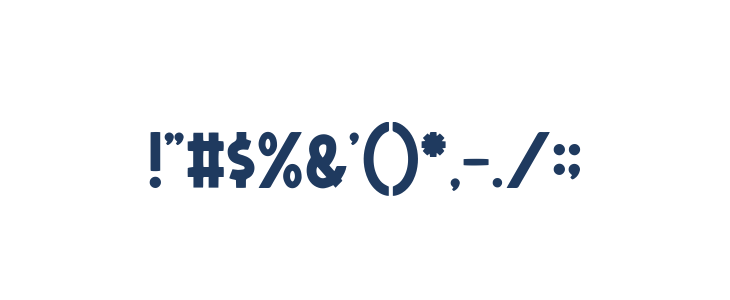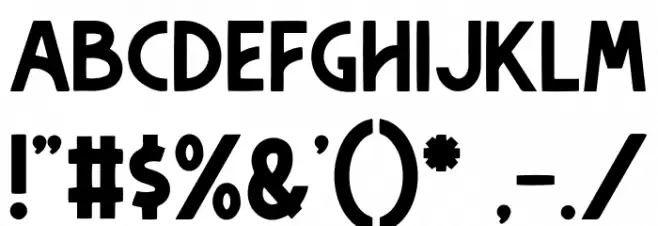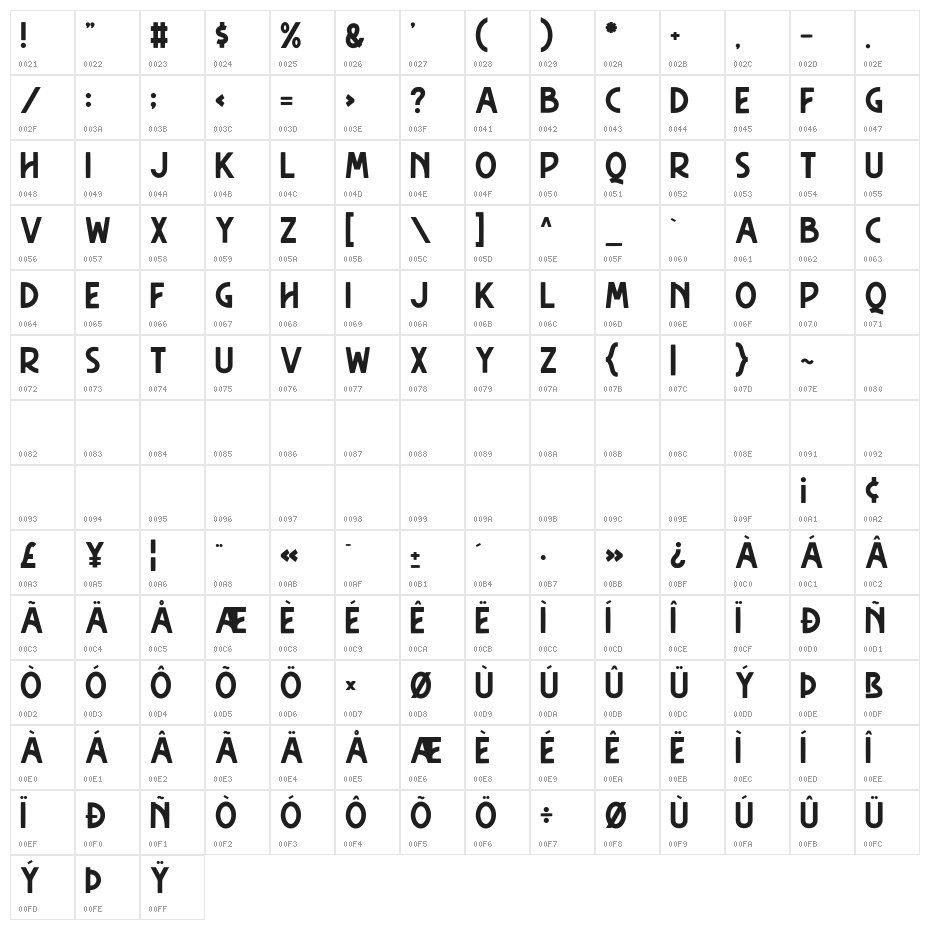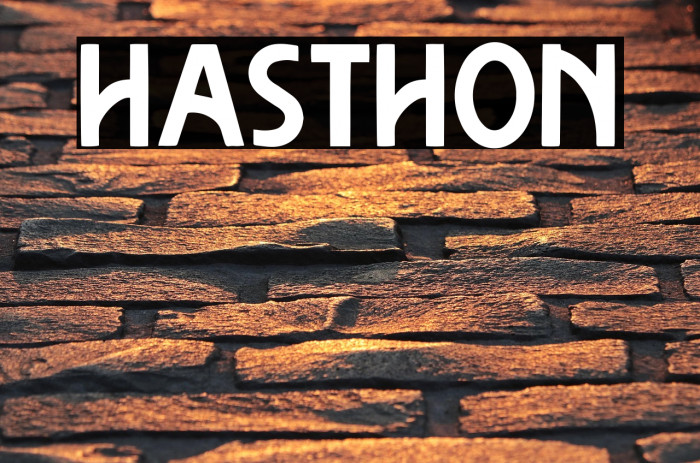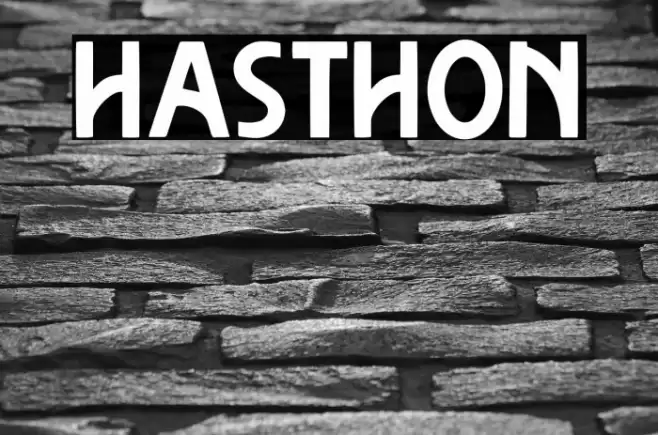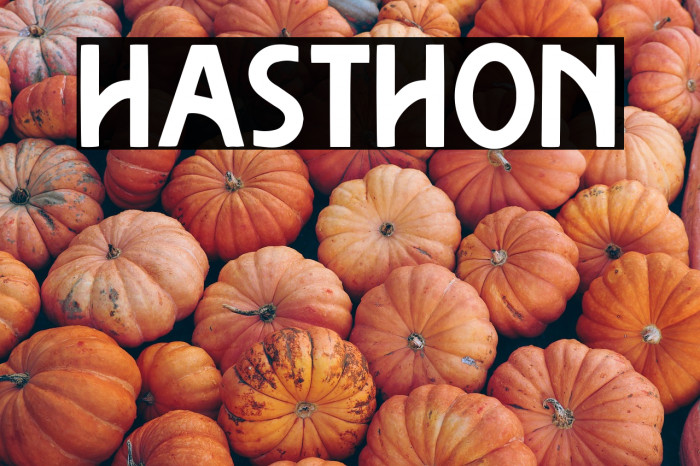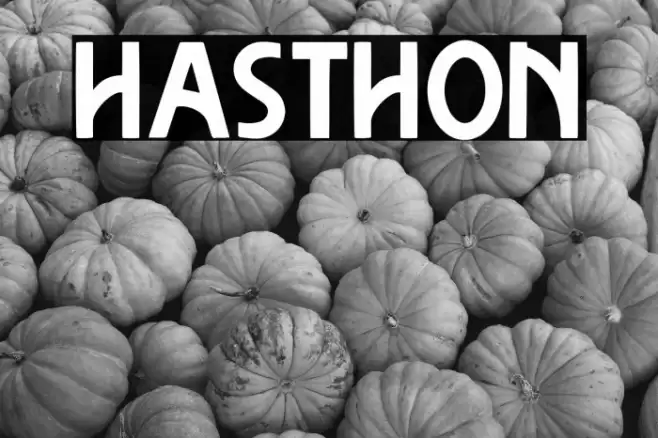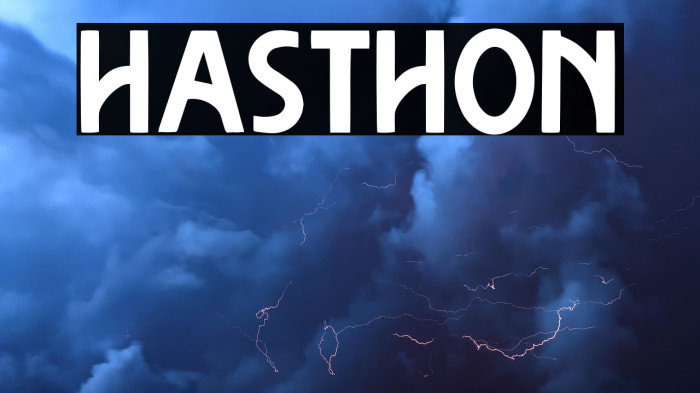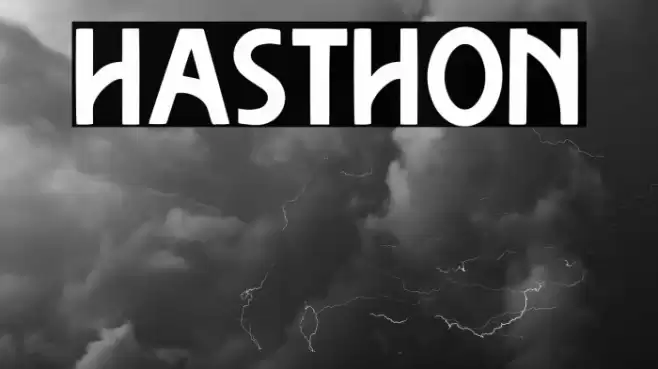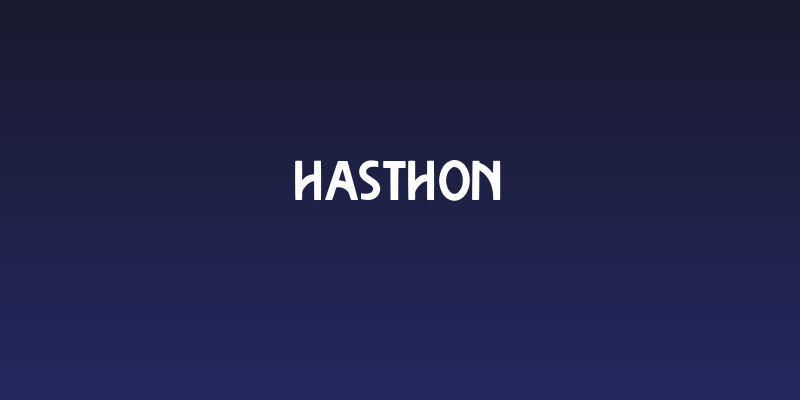
Hasthon Font
Hasthon Description
This font features a bold and dynamic style with a strong presence. The characters are slightly condensed, giving it a compact look while maintaining readability. The strokes are consistent in thickness, providing a uniform appearance across all letters. The design is modern and slightly geometric, with subtle curves that add a touch of playfulness. The uppercase and lowercase letters are well-balanced, and the numerals are clear and distinct. Special characters are included, enhancing its versatility for various design needs.